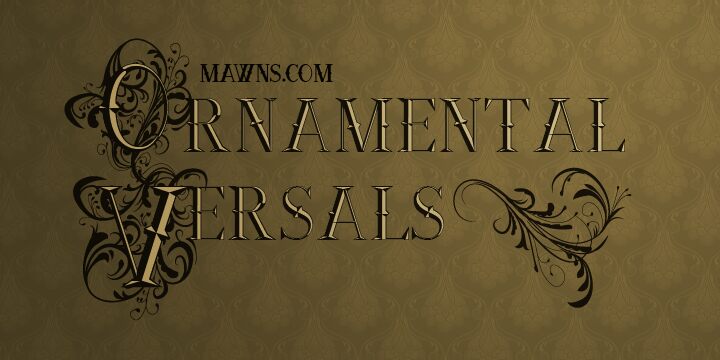
Ornamental Versals Black by Måns Grebäck is a free decorative display font built around stately serif capitals and dense curling foliage. Fine tendrils loop through and around the broad letterforms, creating the elaborate look of engraved initials and nineteenth-century ornament.
Book covers are its strongest setting, especially for editions of folklore, poetry, or historical fiction. The vine-filled letters can also shape theatrical posters, formal invitations, and decorative packaging with a suitably lavish theme. Readers drawn to antique illustration and maximal Victorian detail are the clearest audience for this lettering rather than restrained typography.